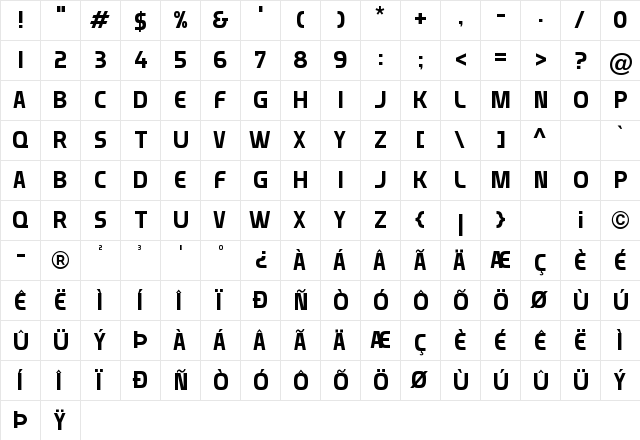
Munistic Regular
Design Context for Munistic Typeface
Munistic takes a measured approach to typography — its balanced proportions and neutral character make it a reliable workhorse for both digital and print work.